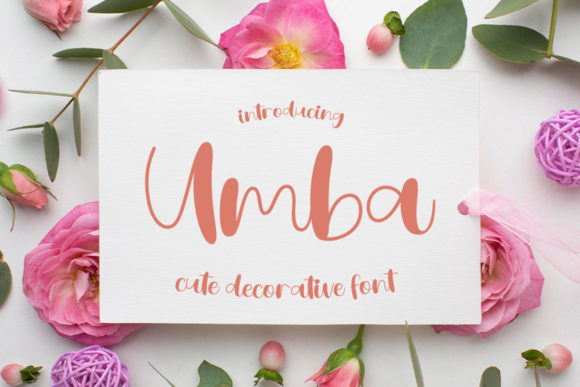
Behold, Umba Font, a timeless treasure that will effortlessly elevate your design endeavors. Dive into a world of boundless creativity, where your imagination takes center stage. Umba Font, crafted with the utmost care by type.on.studio, is a captivating script font that effortlessly captures the essence of elegance and charm.
Let your designs dance with a symphony of flowing lines, each letter a masterpiece of artistry. Umba Font's exquisite curves and delicate details will breathe life into your logos, branding, and quotes. It's the perfect font for etching your mark in the digital realm, leaving an unforgettable impression on all who encounter it.
Umba Font is not just a font; it's an experience. Its graceful strokes evoke a sense of nostalgia, while its modern twist adds a touch of contemporary flair. It's a font that transcends time, effortlessly adapting to any design style, from classic to avant-garde.
With Umba Font, you'll unlock a world of creative possibilities. Create logos that radiate sophistication and elegance. Design branding materials that exude professionalism and trust. Craft quotes that resonate with beauty and inspiration. The possibilities are endless, limited only by your imagination.
Imagine your logo, rendered in the enchanting strokes of Umba Font, standing out from the crowd, commanding attention with its timeless allure. Picture your branding materials, imbued with the grace and charm of Umba Font, leaving a lasting impression on your audience. Envision your quotes, adorned with the elegance of Umba Font, captivating hearts and minds, inspiring and motivating.
Umba Font is more than just a font; it's an investment in your creative journey. Its versatility extends beyond logos, branding, and quotes, making it the perfect choice for a wide range of design projects. Unleash your creativity and explore the endless possibilities that await you.